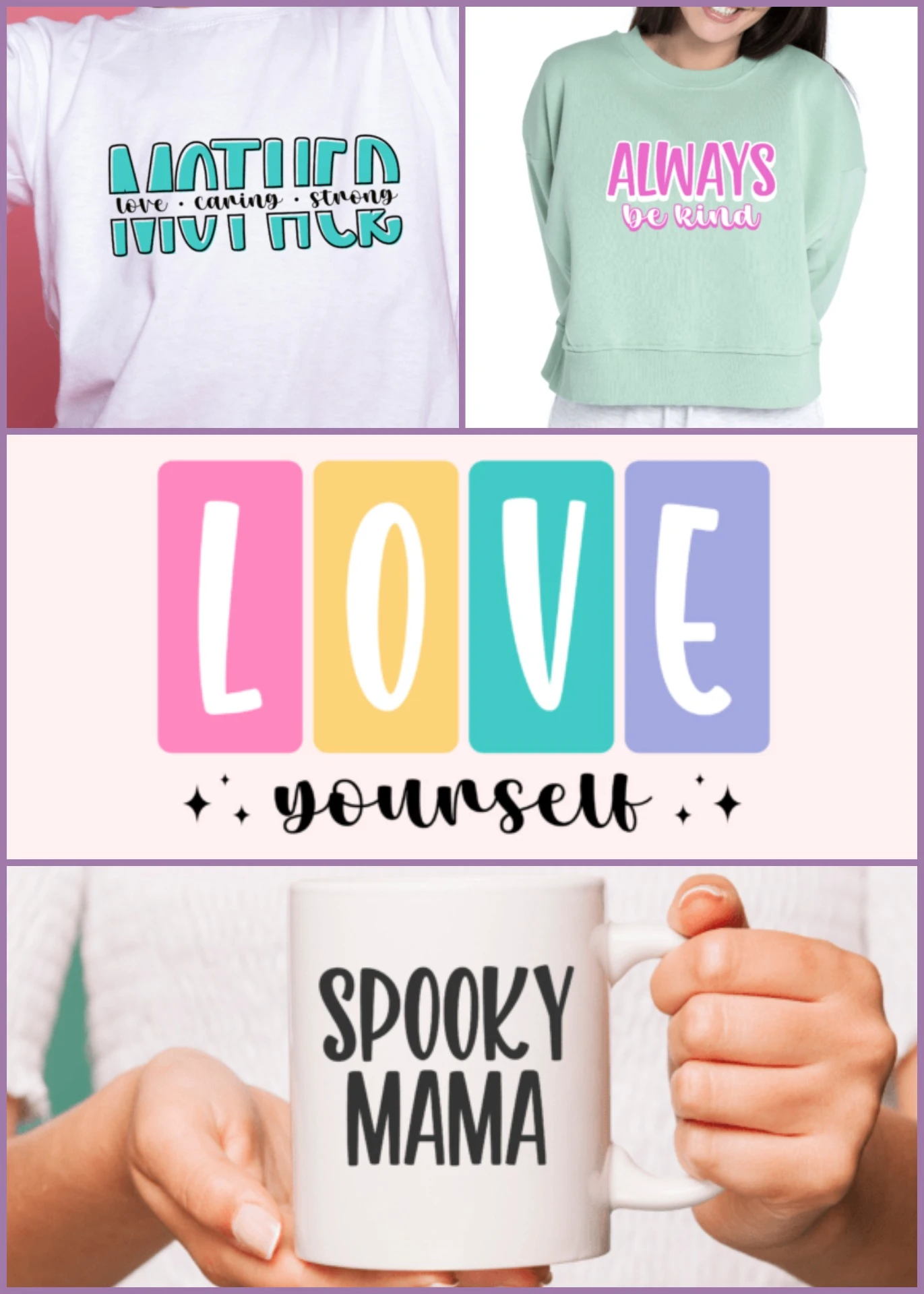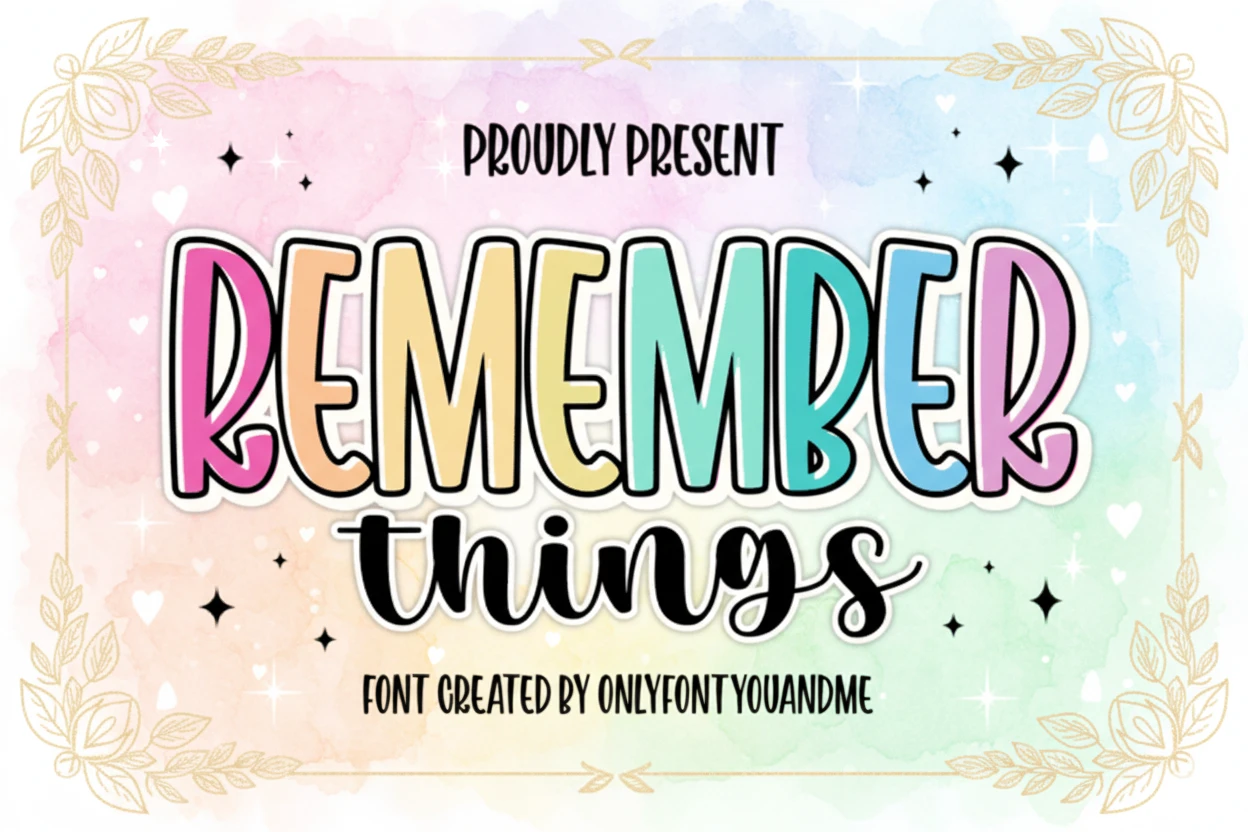
Bring fun and creativity to your designs with Remember Things Font, a cheerful and modern font duo that perfectly balances boldness and elegance. The first font features tall, smooth, rounded letters with a bright outline effect — ideal for titles, stickers, and playful typography. The second script style adds a handwritten, brush-like touch, creating warmth and personality in every word.
Together, these two fonts form a versatile pairing that’s perfect for Cricut crafts, teacher quotes, social media posts, invitations, printables, and kids’ designs. Their complementary styles make it easy to create eye-catching compositions full of energy and charm.
Use it for logos, packaging, or classroom projects, and let your designs shine with colorful, creative flair.